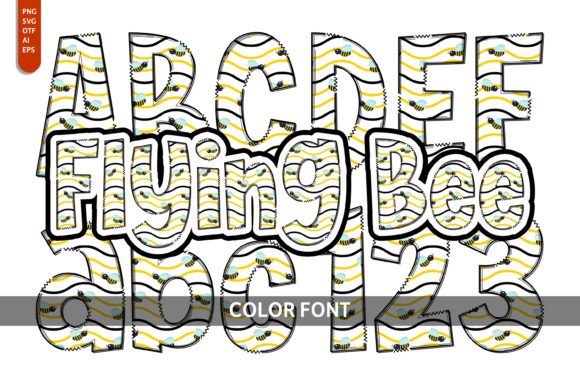
Flying Bee Font: Adding a Touch of Whimsy to Your Designs
The Flying Bee font is a delightful and playful typeface that has gained popularity among designers and artists. Its unique and charming appearance makes it an excellent choice for designs that aim to convey a sense of fun, creativity, and imagination. In this article, we’ll explore the characteristics of the Flying Bee font, its uses, and compatibility with various design software.
Characteristics of Flying Bee Font
The Flying Bee font is a color font, specifically an Opentype-SVG font, which means it contains both font and color information. This allows for a wide range of colors and gradients to be applied to the text, making it perfect for designs that require a pop of color. The font’s playful and artistic feel makes it suitable for various applications, including children’s books, posters, invitations, greeting cards, and more.
Uses of Flying Bee Font
The Flying Bee font is often used in designs that aim to convey a playful or artistic feel. Some of the most common uses of this font include:
- Children’s Books: The Flying Bee font is an excellent choice for children’s books due to its whimsical, colorful, and easy-to-read nature. It creates an engaging reading experience for young audiences and adds a touch of fun to the story.
- Posters: The font’s playful and artistic feel makes it perfect for creating eye-catching posters for events, promotions, or announcements.
- Invitations: The Flying Bee font is suitable for creating invitations for parties, weddings, and other celebrations, adding a touch of whimsy and personality to the design.
- Greeting Cards: The font’s colorful and playful nature makes it an excellent choice for creating greeting cards for various occasions, such as birthdays, holidays, and get-well wishes.
Tips for Using Flying Bee Font
To get the most out of the Flying Bee font, here are some tips:
- Experiment with Colors: Take advantage of the font’s color capabilities by experimenting with different color combinations and gradients.
- Mix and Match: Combine the Flying Bee font with other fonts to create a unique and visually appealing design.
- Pay Attention to Readability: While the font is playful and artistic, ensure that it’s still easy to read, especially for body text.
The Flying Bee font is a delightful and versatile typeface that can add a touch of whimsy and creativity to various designs. Its compatibility with popular design software and color capabilities make it an excellent choice for designers and artists. By following the tips outlined in this article, users can get the most out of the Flying Bee font and create stunning designs that engage and delight their audience.